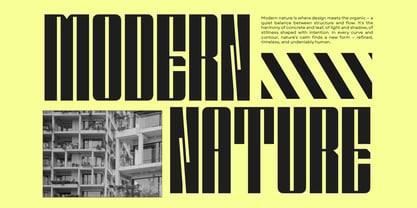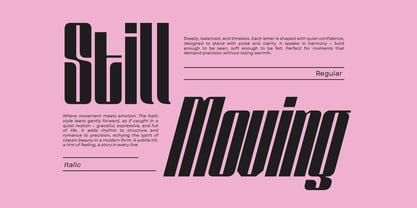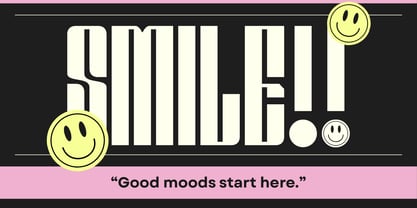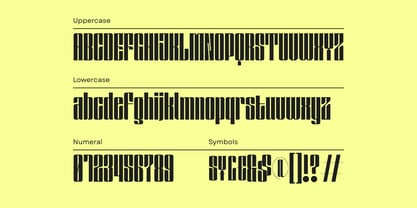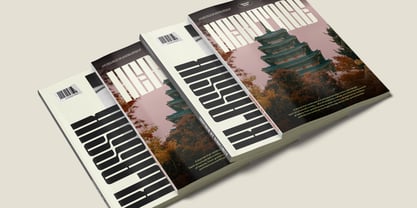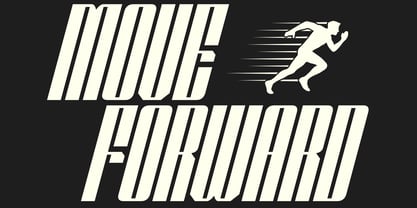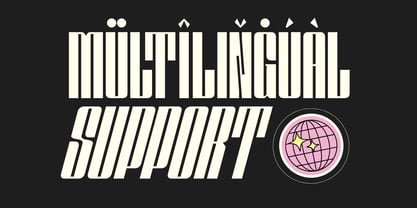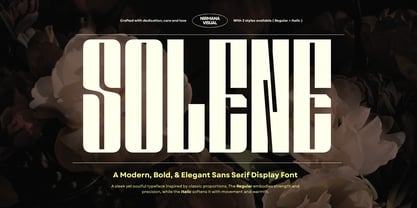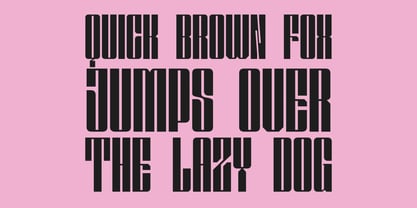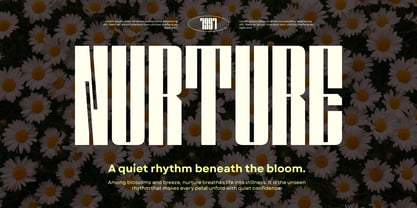
Solene Display
Die Schriftfamilie Solene Display wurde von Sigit Dwipa entworfen und von Nirmana Visual veröffentlicht. Solene Display enthält 2 Stile und Familienpaketoptionen. Mehr über diese Familie
Solene Display is a bold condensed sans serif font designed to make your brand stand out. Featuring both regular and italic styles, it combines strength and elegance, perfect for logos, packaging, and modern headlines. Its clean yet confident letterforms create a strong visual presence, ideal for premium products, editorial titles, or branding. Solene Display brings a touch of sophistication and versatility to every design it graces.